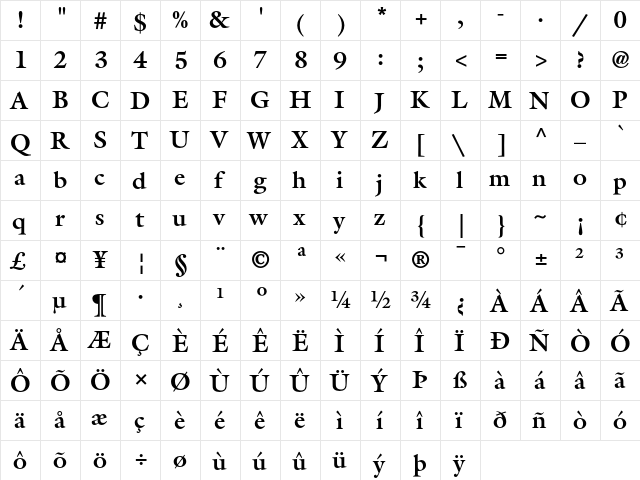
ITC Galliard Bold Font Preview
ITC Galliard Bold
Design Context for ITC Galliard Typeface
ITC Galliard takes a measured approach to typography — its balanced proportions and neutral character make it a reliable workhorse for both digital and print work. The heavy weight commands attention and anchors typographic hierarchies.
Pro Tip: Use ITC Galliard in both headline and body roles to test its range before committing to a single application.